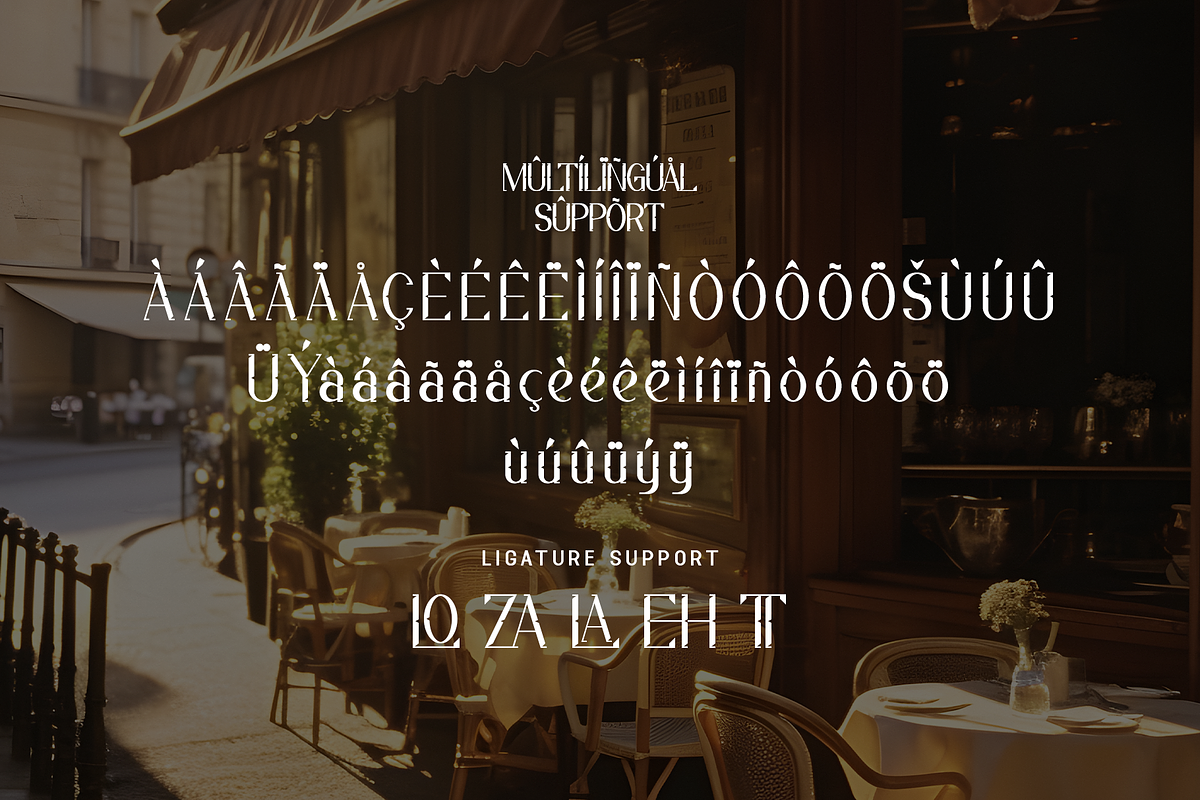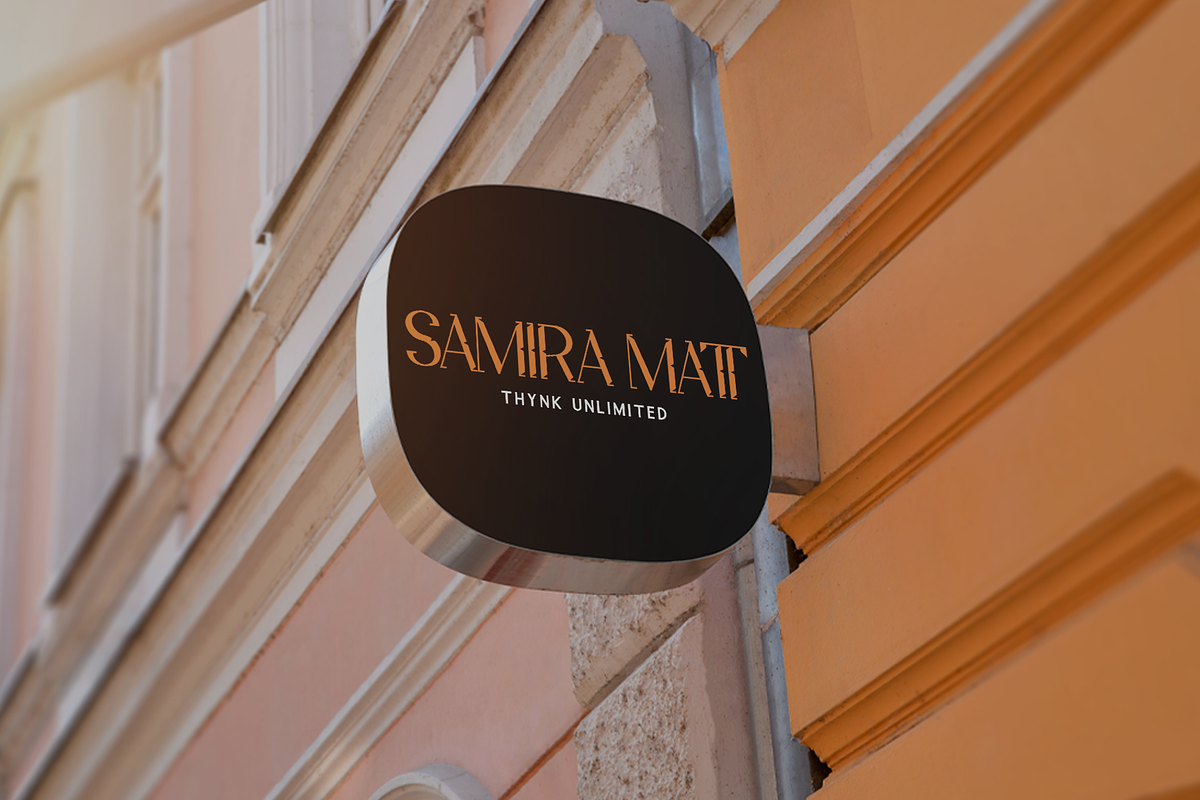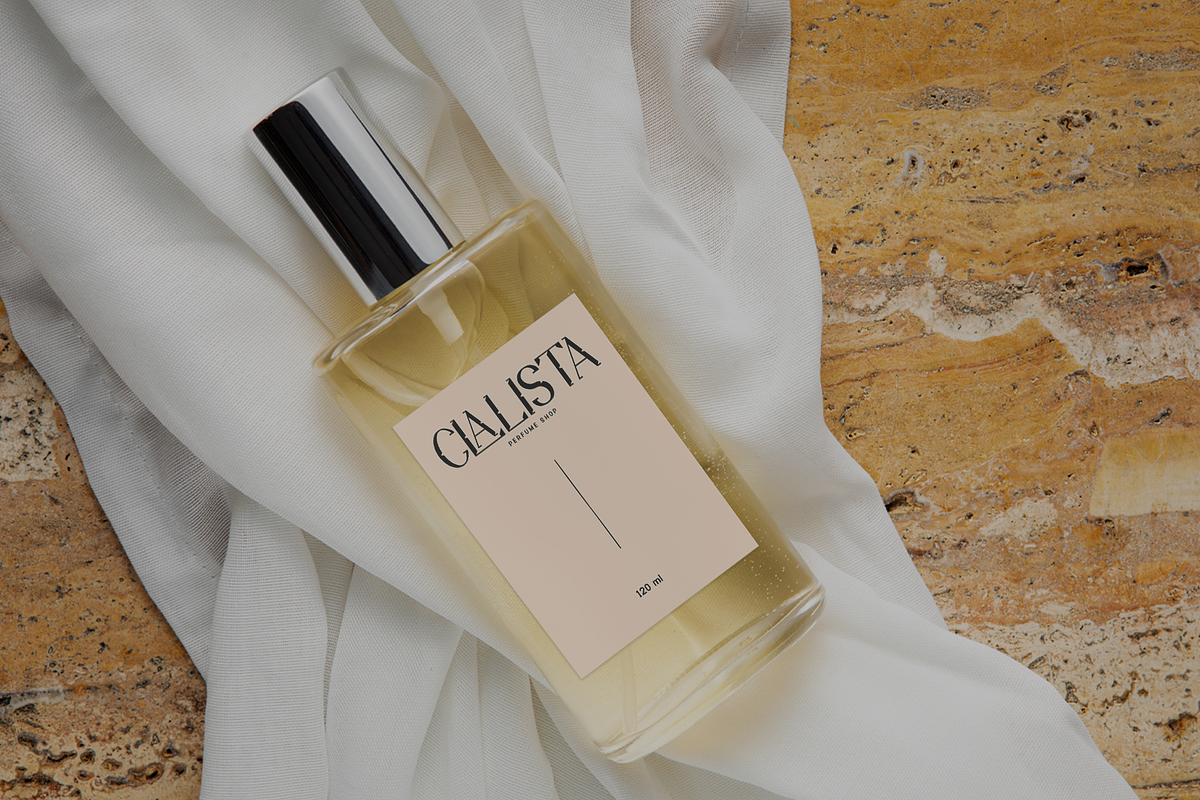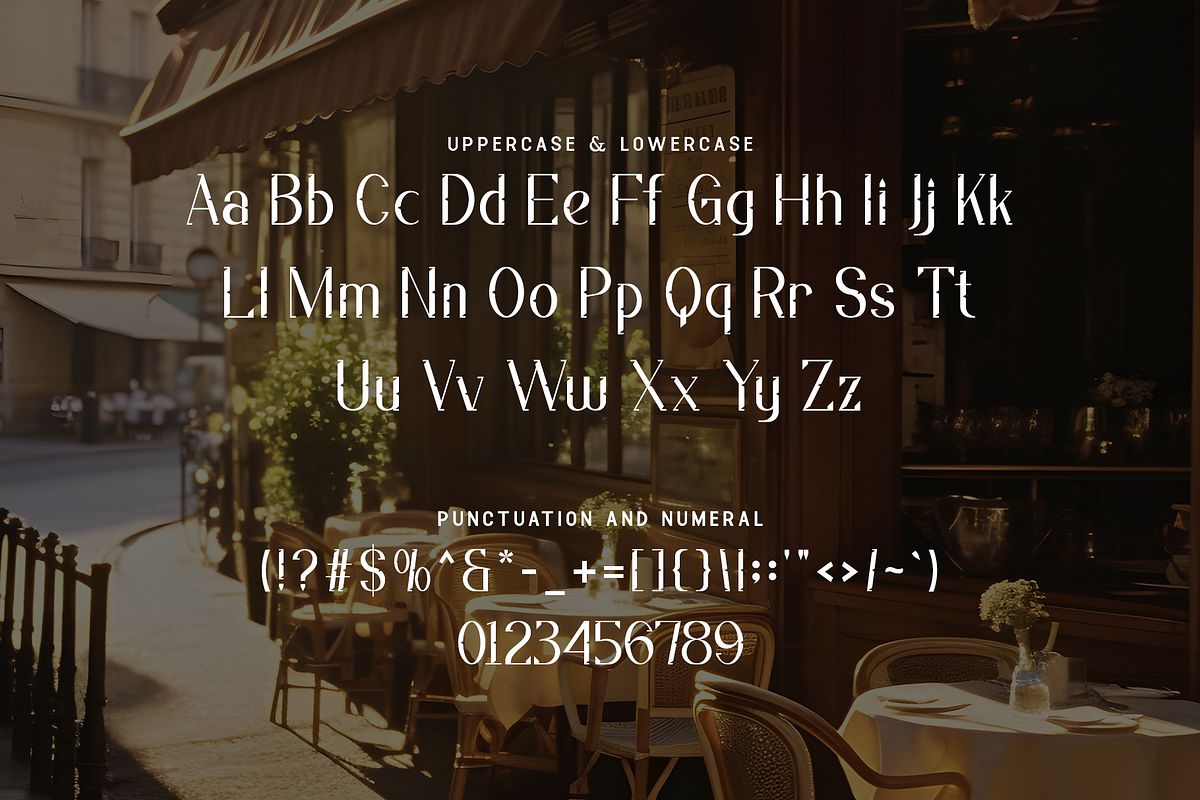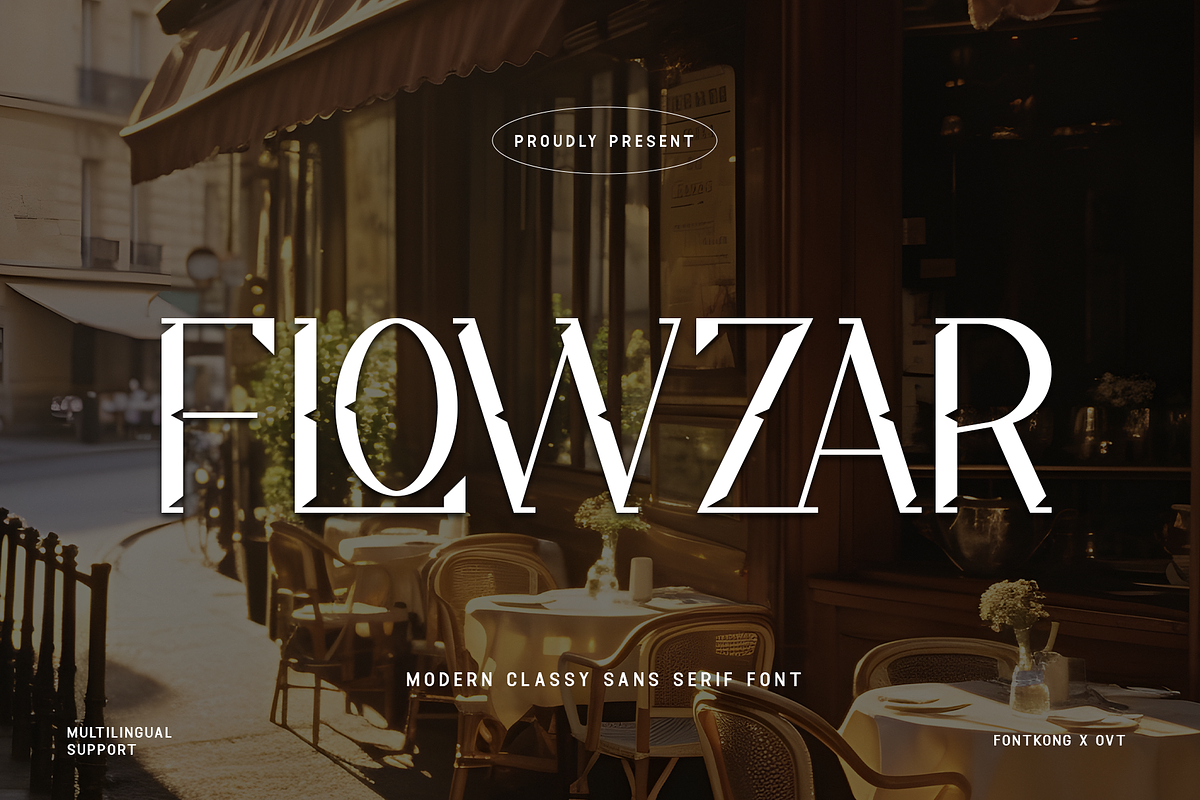
Flowzar - Modern Classy Sans Serif
Flowzar - Modern Classy Sans Serif Font
Introducing "Flowzar," a modern classy sans serif font that exudes elegance and contemporary style. Crafted with precision, "Flowzar" combines clean lines with a sleek design, making it the perfect choice for a wide range of creative projects. This font is ideal for high-end branding, minimalist logos, sophisticated editorial designs, and stylish social media content.
"Flowzar" features a full set of uppercase and lowercase letters, numerals, punctuation, and a variety of ligatures and alternates, allowing for extensive customization and creative freedom. Its versatility and readability make it suitable for both print and digital media, ensuring your designs stand out with a touch of class.
The font supports multiple languages, making it an excellent choice for international projects. Whether you're working on a chic fashion brand, a modern website, or an elegant wedding invitation, "Flowzar" adds a refined and polished touch to your work.
"Flowzar" invites you to elevate your designs with its sophisticated simplicity and timeless appeal.